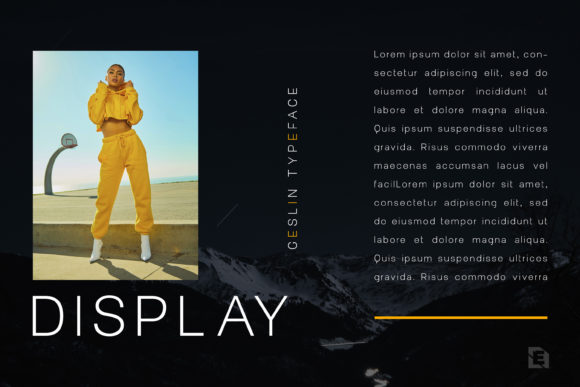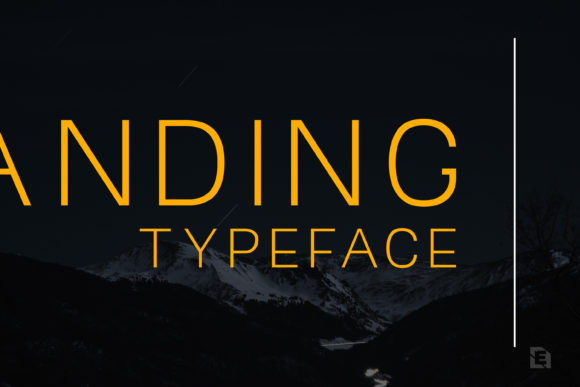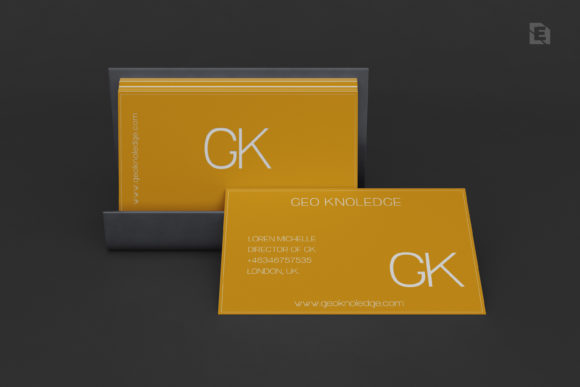
Introduction to Geslin Font
Geslin is a minimal and neat display font.
Geslin Font offers exceptional quality and versatility, making it a valuable addition to your design toolkit. Whether you’re creating for personal projects or commercial use, Geslin Font delivers professional results.